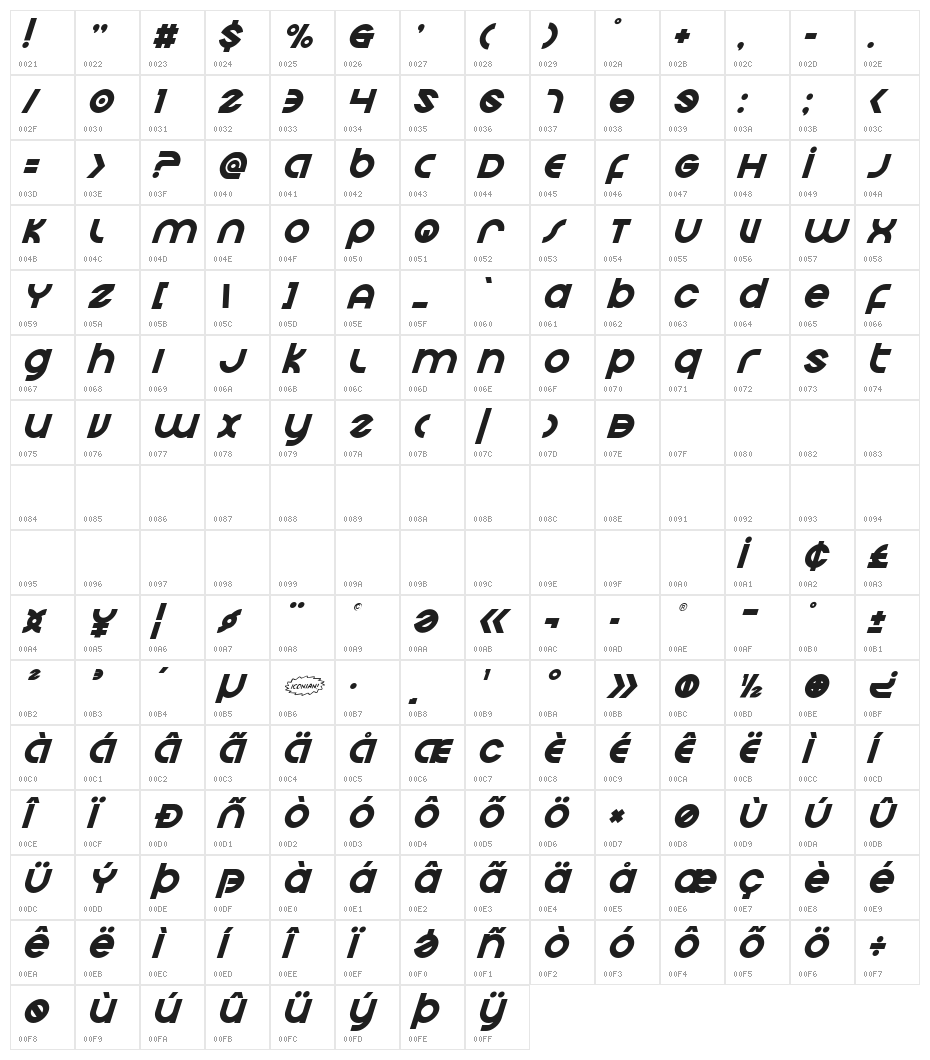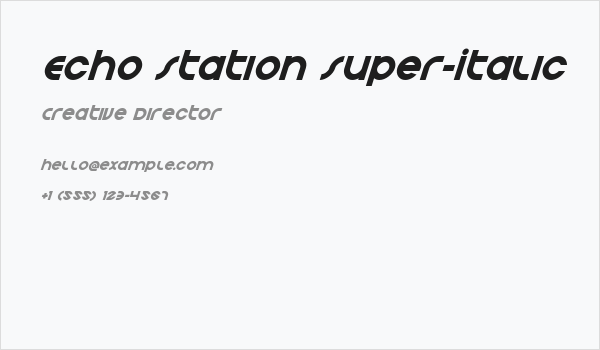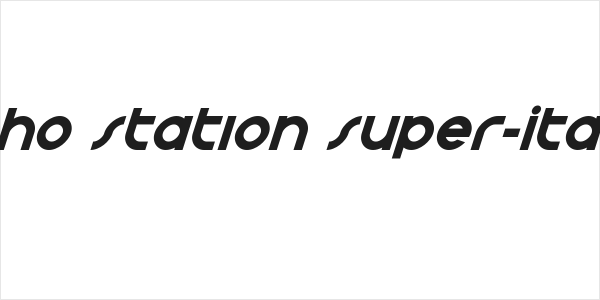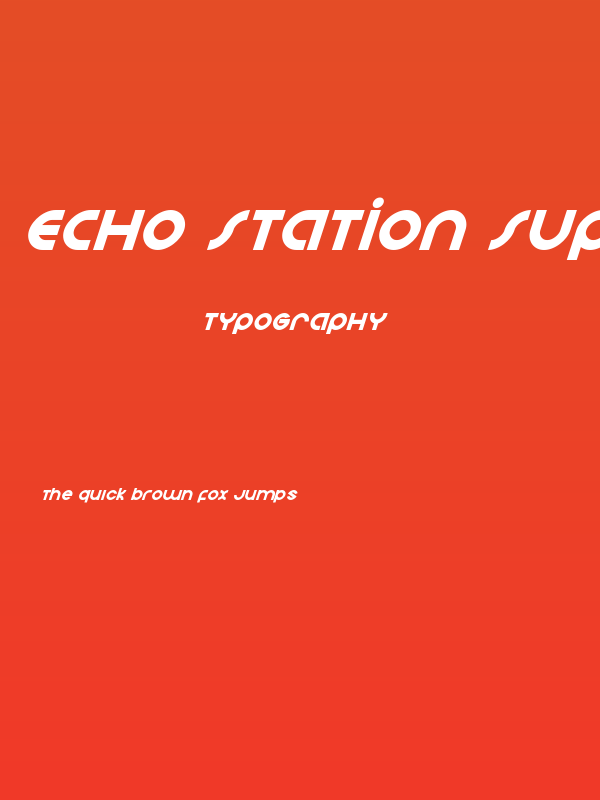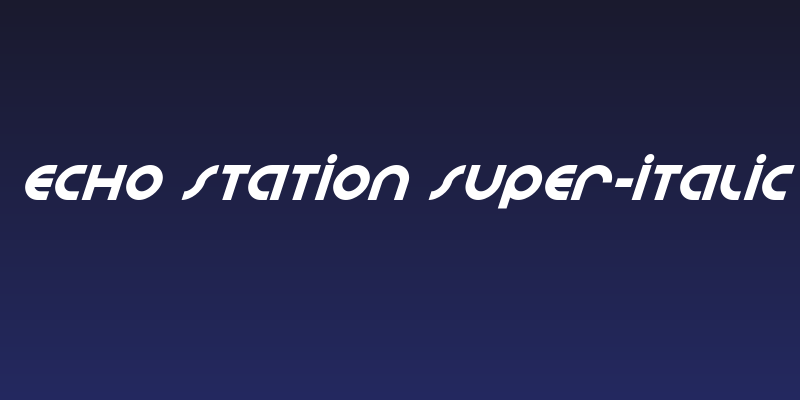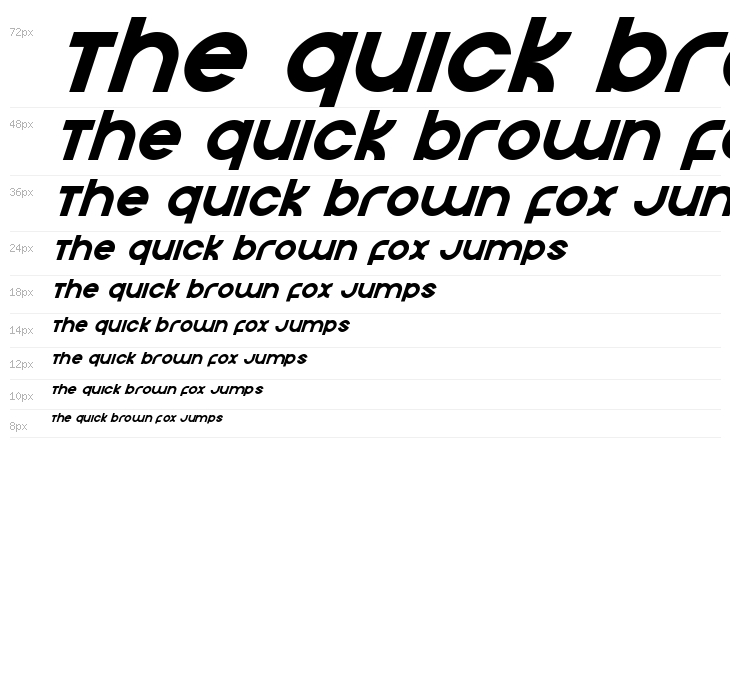
Echo Station Super-Italic Font
Echo Station Super-Italic Description
This font features a dynamic and modern design with a distinct italic slant, giving it a sense of motion and energy. The characters are bold and rounded, with a futuristic aesthetic that is both sleek and stylish. The uppercase and lowercase letters maintain a consistent design, with smooth curves and a uniform stroke width. Numbers and special characters are designed to complement the overall style, ensuring versatility across various applications. The font's unique appearance makes it suitable for projects that require a contemporary and eye-catching look.
| Use Case | Headlines, Logos, Digital Media |
| Proposed Projects | Ideal for branding, advertising, digital media, and any project that requires a modern and dynamic typeface. |